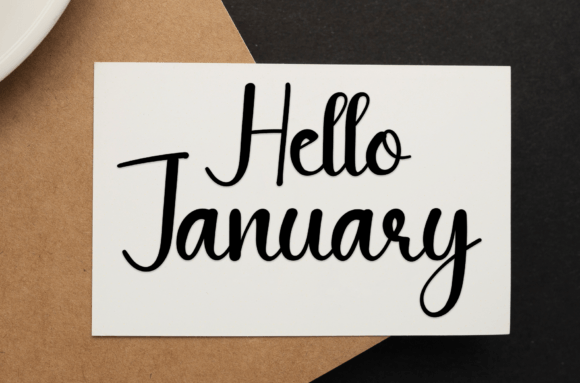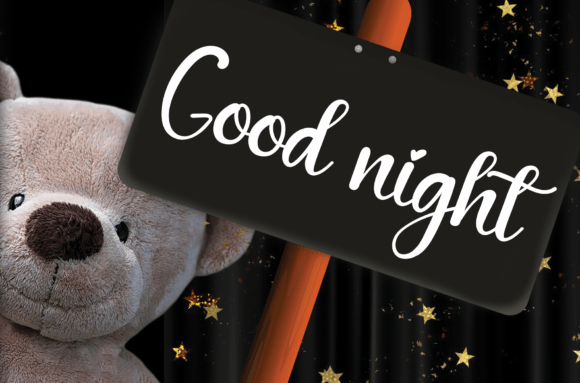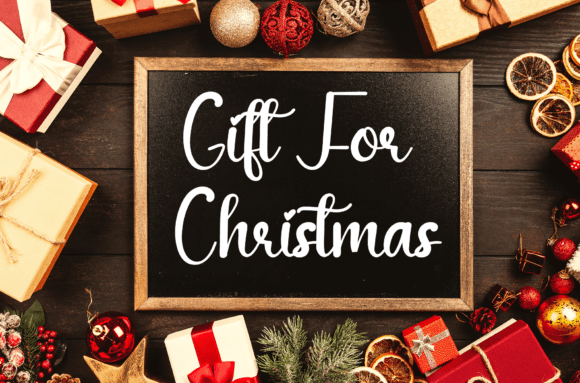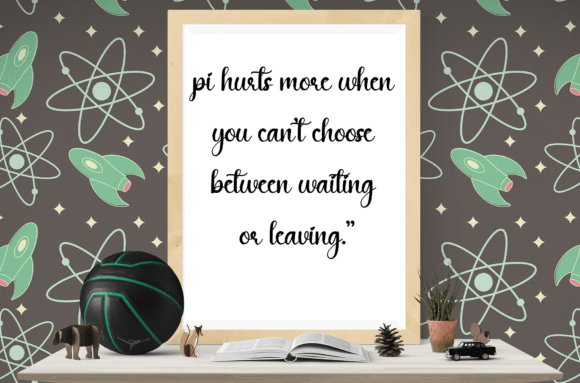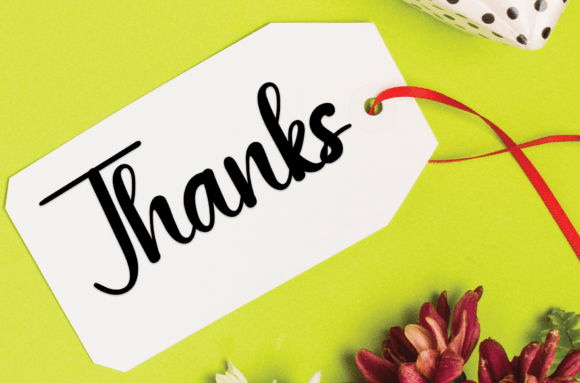
January Font
A Delightful Script: January Handwritten Font
The January handwritten font is a warm and welcoming typeface that brings a joyful personality to your creative work. Designed with elegance and charm, this font is perfect for adding a handwritten touch to your personal and professional projects. Its sweet curves and relaxed strokes make it ideal for a wide range of applications, especially for designs that aim to evoke emotion and warmth.
If you’re working on wedding invitations, thank-you notes, or greeting cards, January is a go-to choice. Its casual yet refined handwritten style delivers a personal feel that resonates with recipients. Whether you’re crafting invitations for an intimate gathering or creating a heartfelt birthday card, this font adds a layer of authenticity that’s hard to match.
Why Choose January for Your Designs?
There are many handwritten fonts available, but what sets January apart is its balance of fun and legibility. It doesn’t sacrifice clarity for style. This makes it suitable not only for decorative use but also for functional design where readability is essential.
Here are a few reasons designers love January:
• Friendly and approachable letterforms
• Well-balanced spacing and flow
Add Personality to Every Project
Transitioning from generic fonts to a personalized typeface like January can completely transform your design. For example, when used in a brand logo, the font communicates approachability and friendliness. On the other hand, using it in packaging design can make your product feel handmade and unique.
Use It Everywhere
Thanks to its simplicity and charm, January can be used in:
• Wedding invitations
• Save-the-date cards
• Quotes and social media posts
• Logo designs
• Branding projects
• Blog headers
• Digital scrapbooking
• Personalized stationery
In conclusion, the January handwritten font is more than just a pretty script—it’s a font that adds heart and soul to your work. Whether you’re designing for love, celebration, or inspiration, January helps you deliver your message in a personal and memorable way. Try it once, and it might just become your favorite script font for every season!